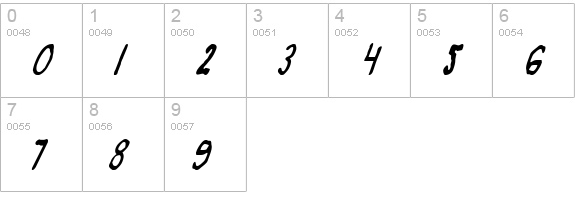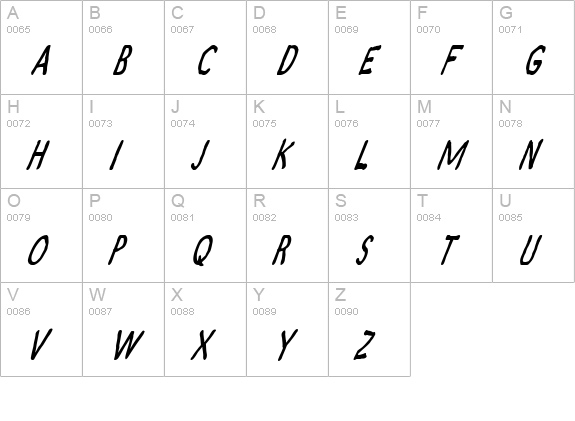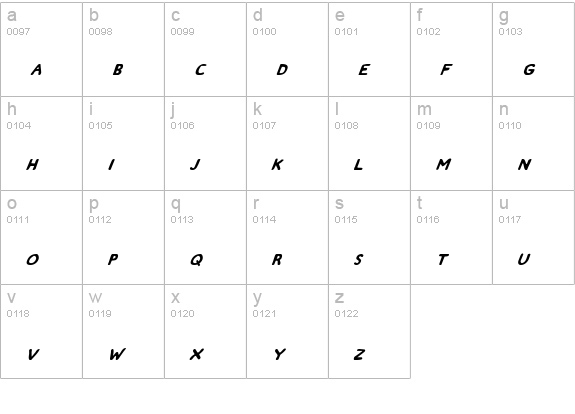
Zamboni Joe Italic is a distinctive, italic variant in the Zamboni typeface family \xE2\x80\x94 well suited to design and typography projects.
Zamboni Joe Italic font is a sleek and modern typeface that exudes elegance and sophistication. Its italicized style adds a touch of flair and creativity to any design project. With its clean lines and sharp angles, Zamboni Joe Italic is perfect for adding a touch of class to your branding, logos, invitations, and more. Best of all, Zamboni Joe Italic font is available for free download at FontsMarket.com. This means you can easily access this stunning font and incorporate it into your projects without breaking the bank. Whether you're a designer, business owner, or simply someone looking to elevate their creative projects, Zamboni Joe Italic font is a versatile and stylish choice that won't cost you a penny. Download it today and see the difference it can make in your designs!